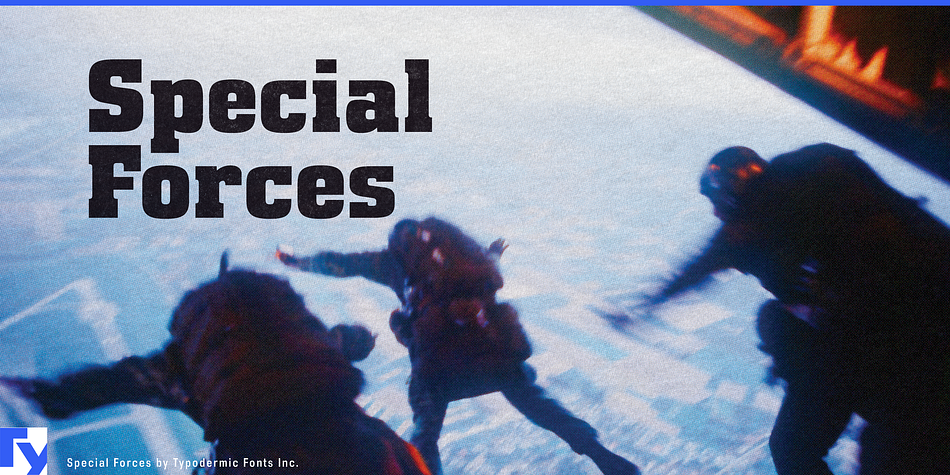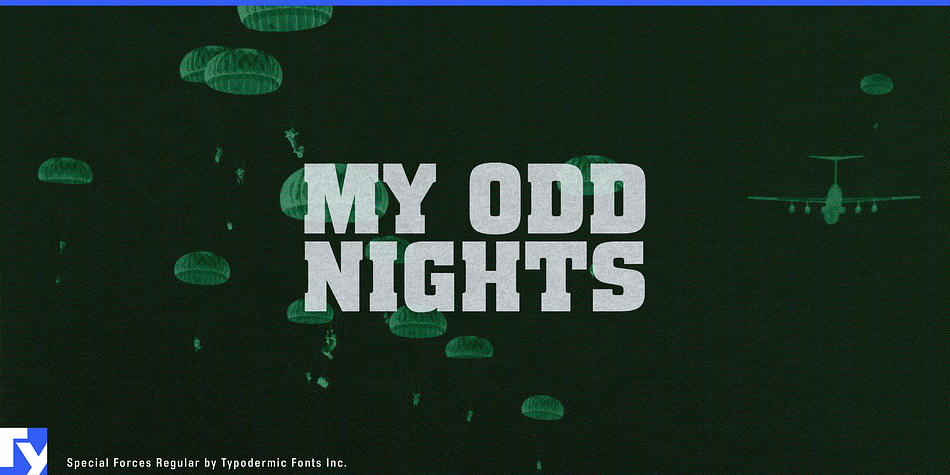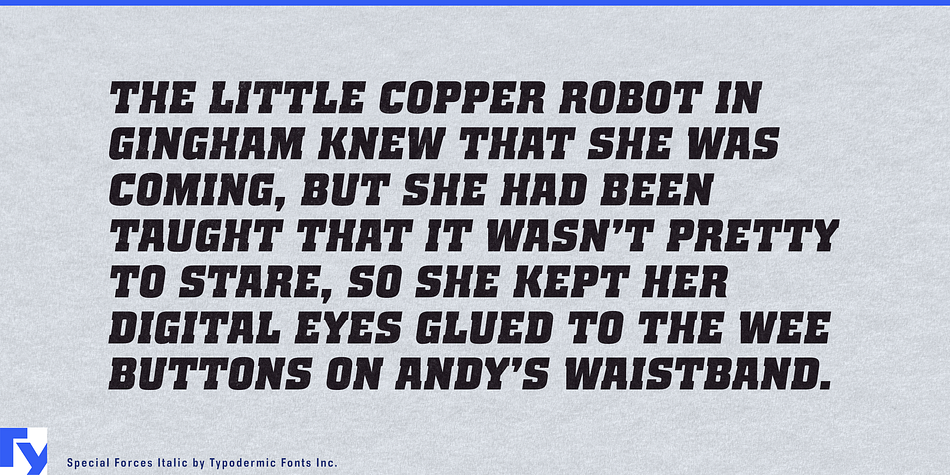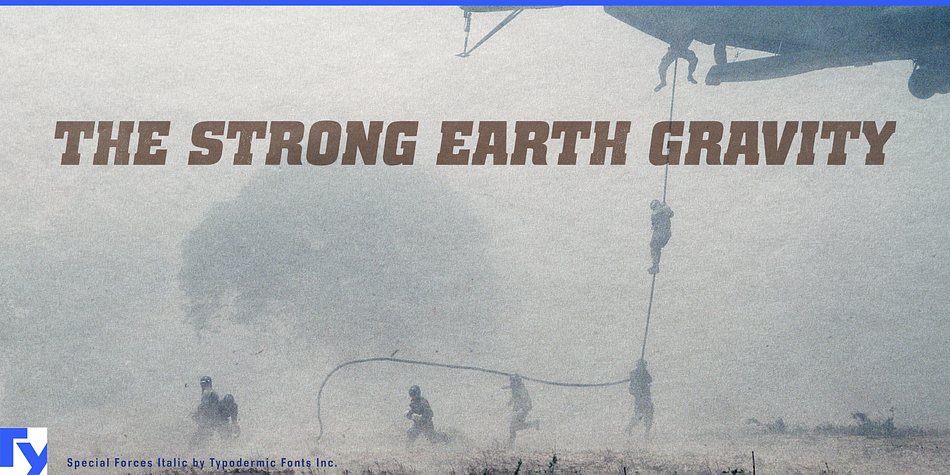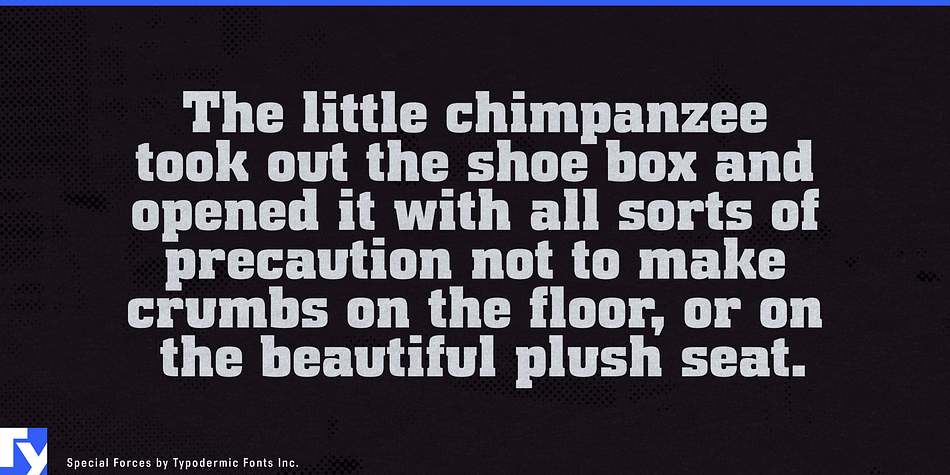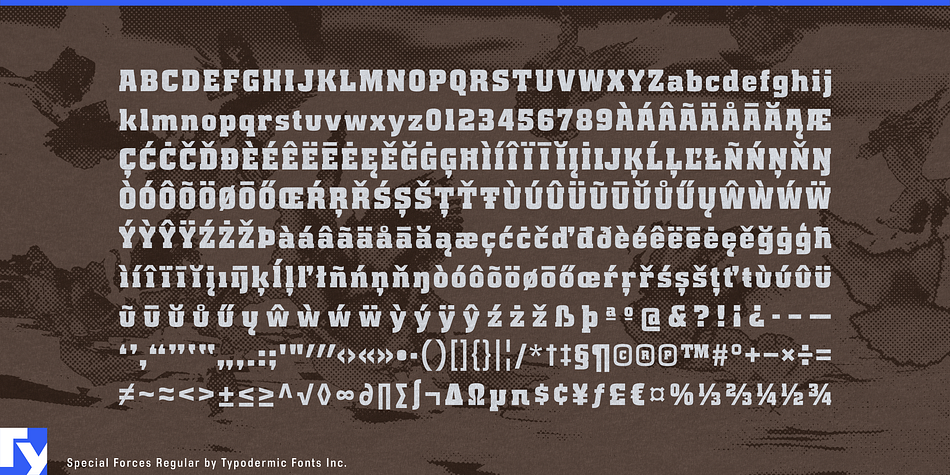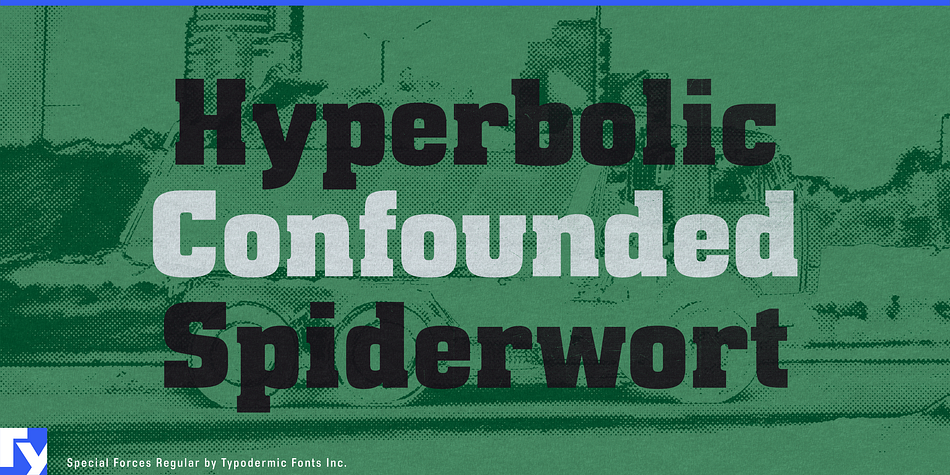
Special Forces is a display slab font family. This typeface has two styles and was published by Typodermic Fonts Inc.
Special forces is a tough, slab serif headline font designed for the screen.